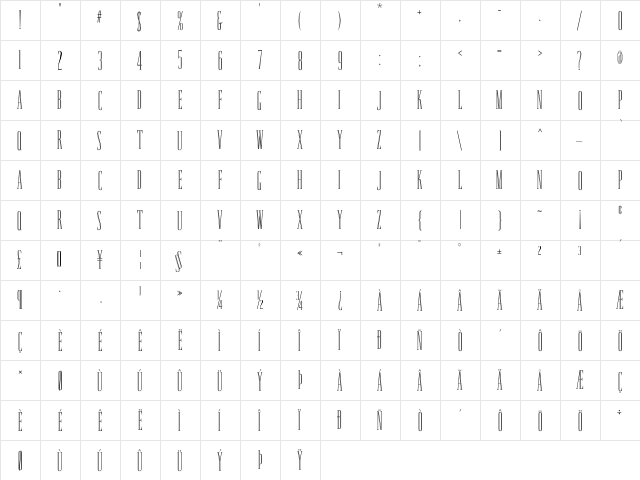
KathCondensed Inline
Design Context for KathCondensed Typeface
KathCondensed is built around its visual character rather than neutral utility — its distinctive forms are designed to make an impression at display sizes.